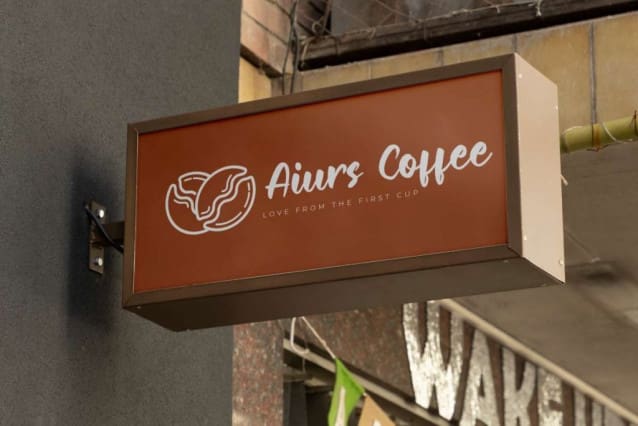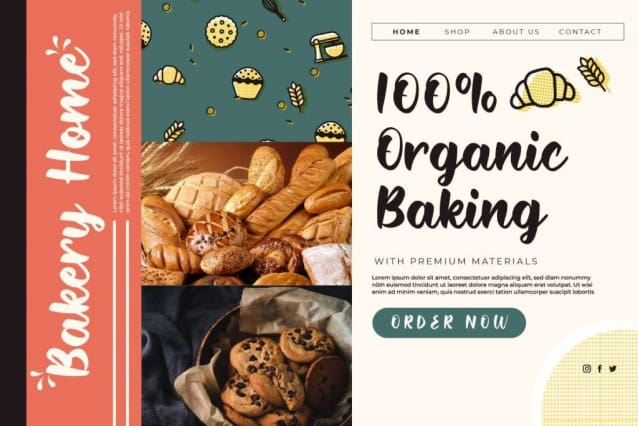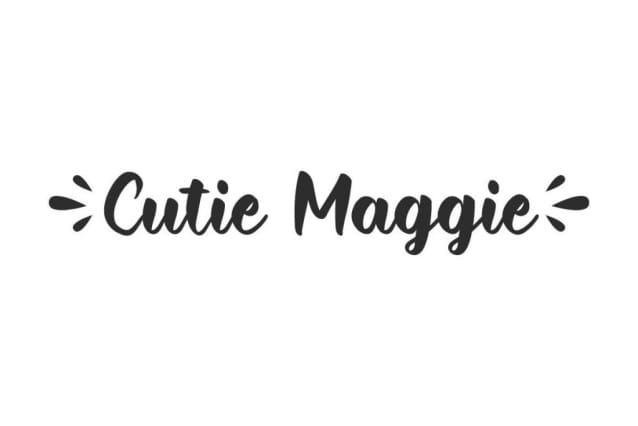
Cutie Maggie Font
Cutie Maggie Font is a cute script font with calligraphy style. This font was created with a thick brush with a sweet look in mind that will steal your heart. It will be suitable for many industries, such as apparel, bakery, beauty product, café, fashion, pastry, photography, spa salon, travel, and more!
Cutie Maggie Font will be great for app view, brochure, labels, product packaging, quote art, signage, website, and anything that requires a charming touch of calligraphy. Perfectly crafted to bring aesthetics to every design created and make it easy to read.
Cutie Maggie Font comes with a full set of Uppercase and Lowercase Basic Characters, Number, Punctuation, Symbol, Swoosh, and also supports multilingual characters. Ready to use both on Windows machine or Mac with simple installations. It’s tested to work well in the Adobe Apps (Illustrator, Adobe InDesign, Adobe Photoshop) CorelDraw, and others. PUA Encode Characters means you can access all the glyphs and swashes with ease.